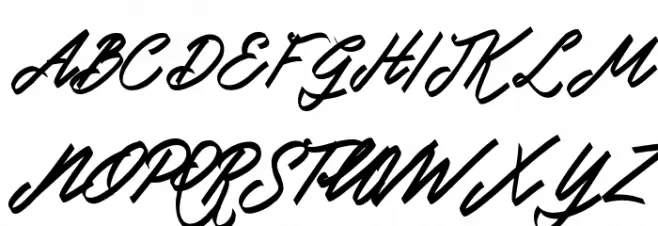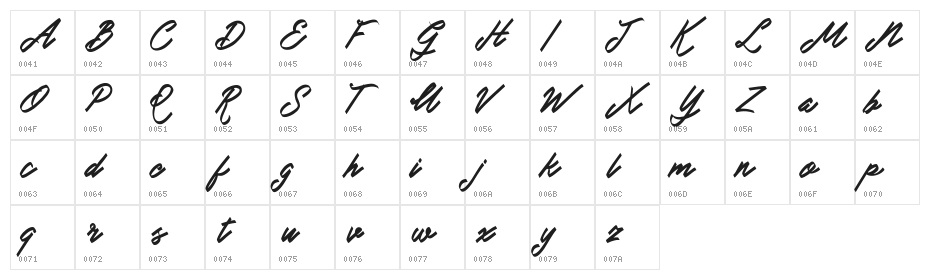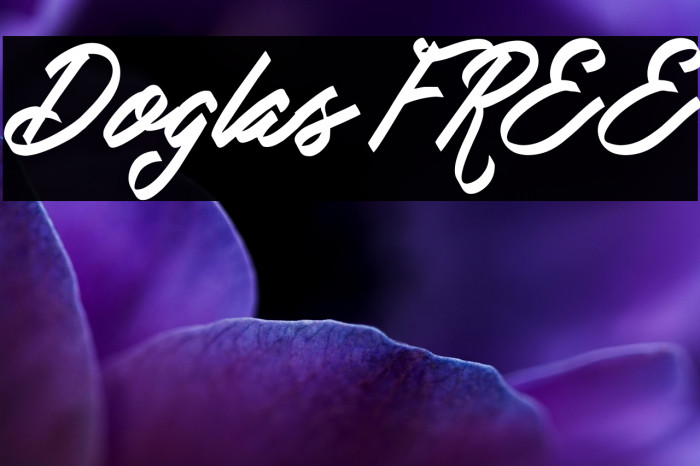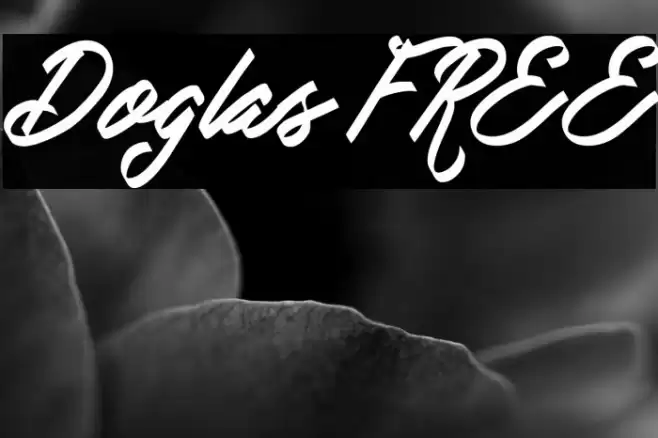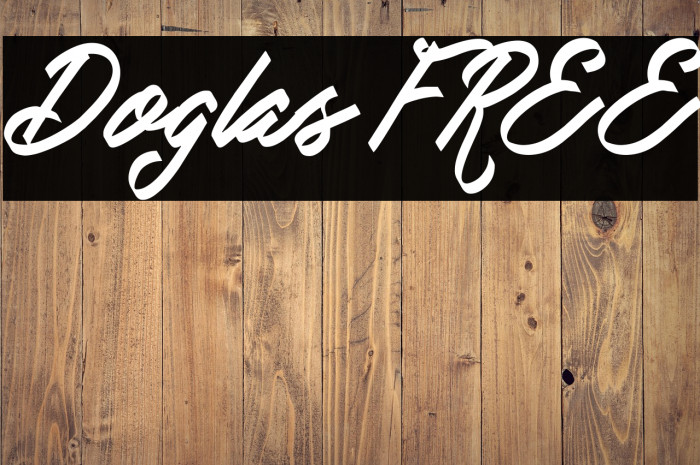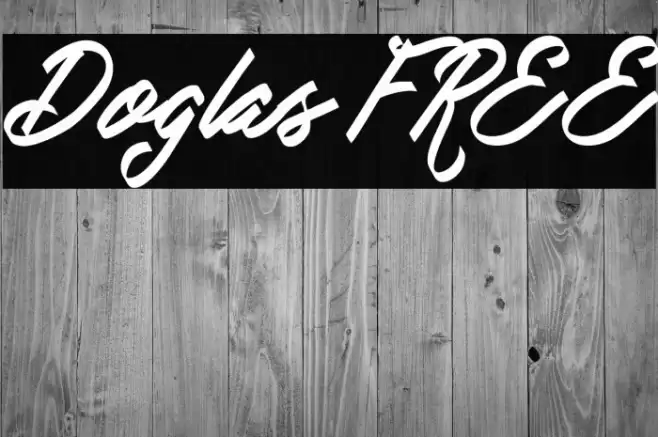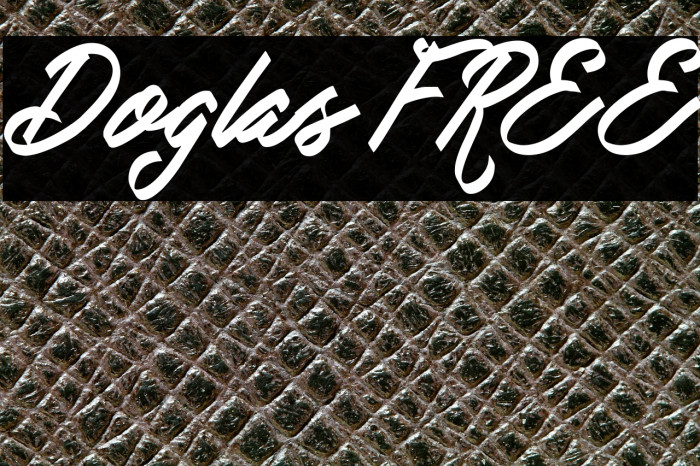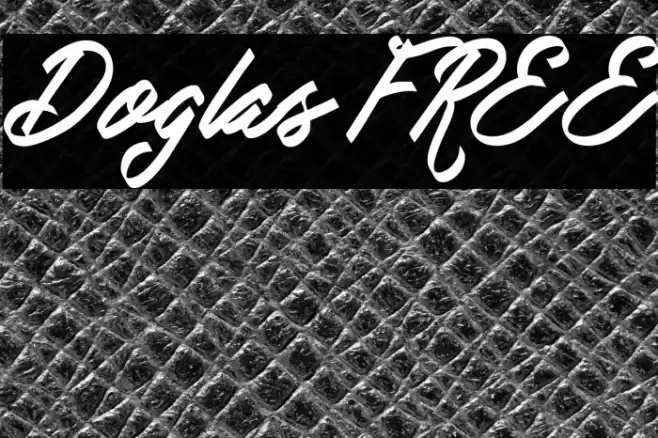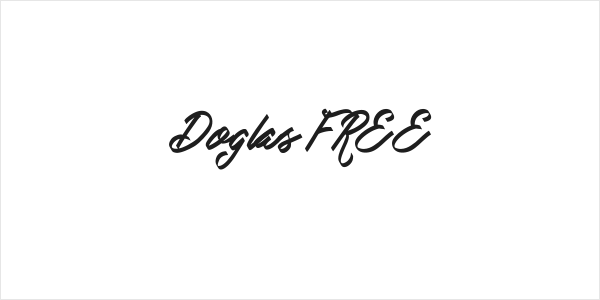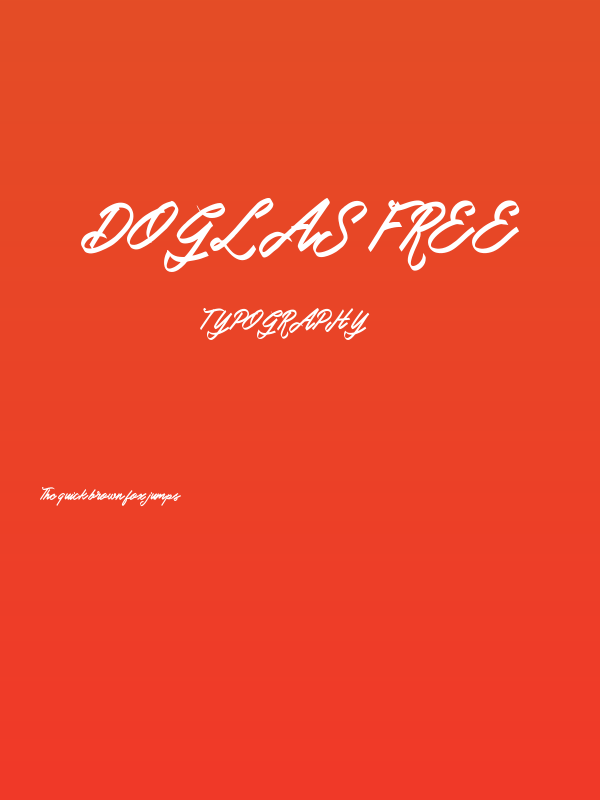
Doglas FREE Font
Doglas FREE Description
This font features a dynamic and fluid script style, characterized by its elegant and flowing cursive letters. The strokes are bold and confident, with a slight slant that adds a sense of motion and grace. The uppercase letters are distinct and prominent, while the lowercase letters maintain a consistent flow, creating a harmonious balance. The font's design is reminiscent of traditional calligraphy, yet it retains a modern touch with its smooth curves and clean lines. It is well-suited for projects that require a personal and artistic touch, such as invitations, branding, and creative designs.
| Use Case | Logos, Invitations, Artistic designs |
| Proposed Projects | Ideal for wedding invitations, branding, logos, and artistic projects. |